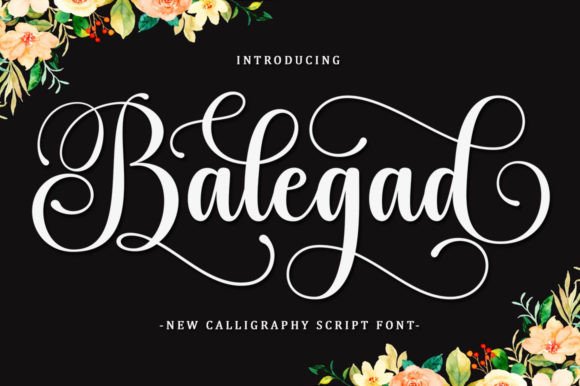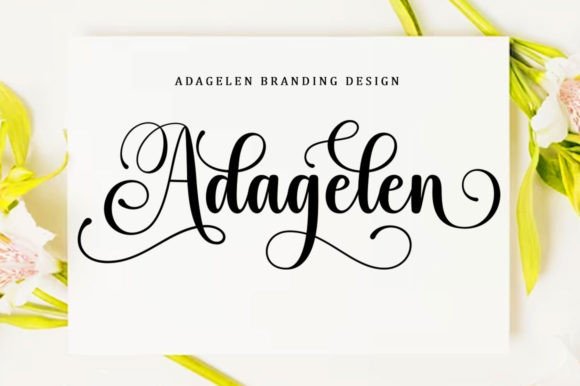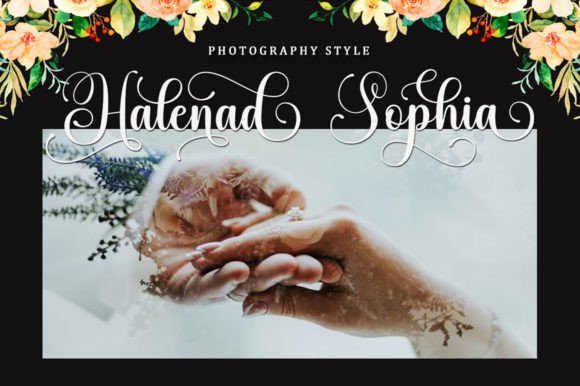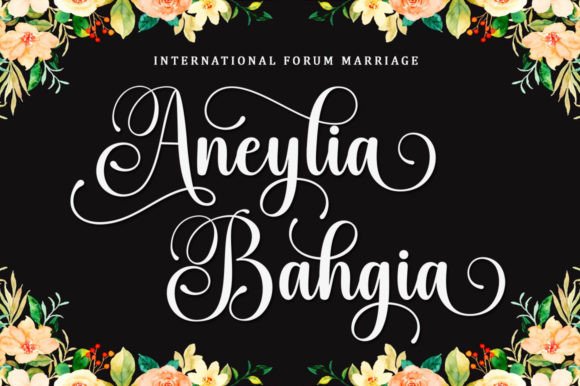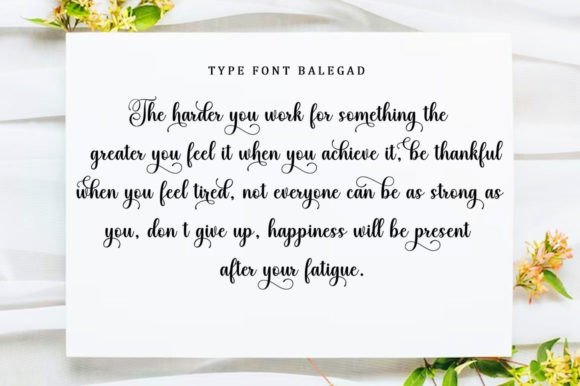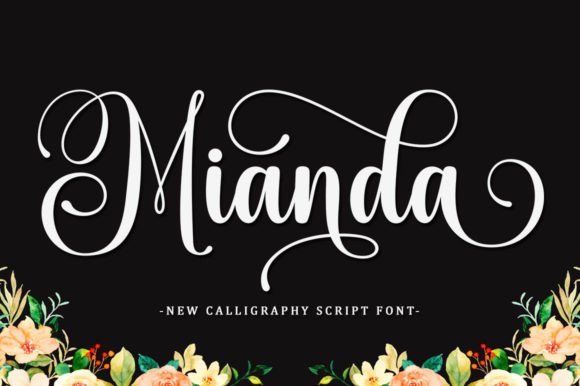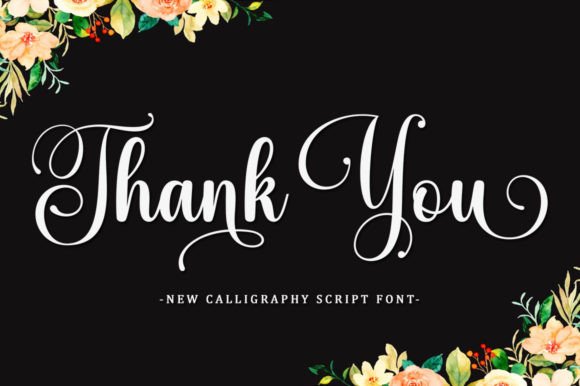
Balegad is a cute, elegant, and unique handwritten font. Expertly designed to become a true favorite, this font has the potential to take your creative ideas to the highest level! This font is PUA coded which means you can easily access all the glyphs.
Balegad Font